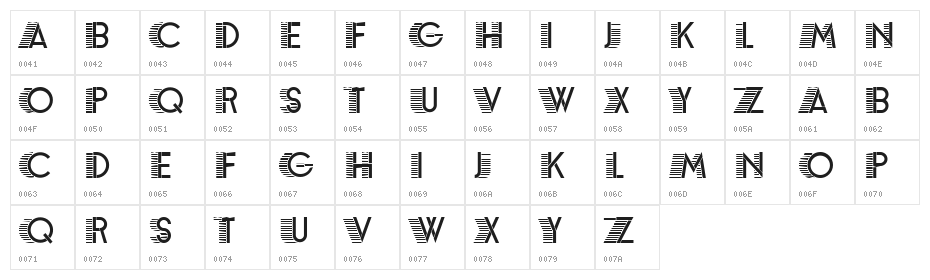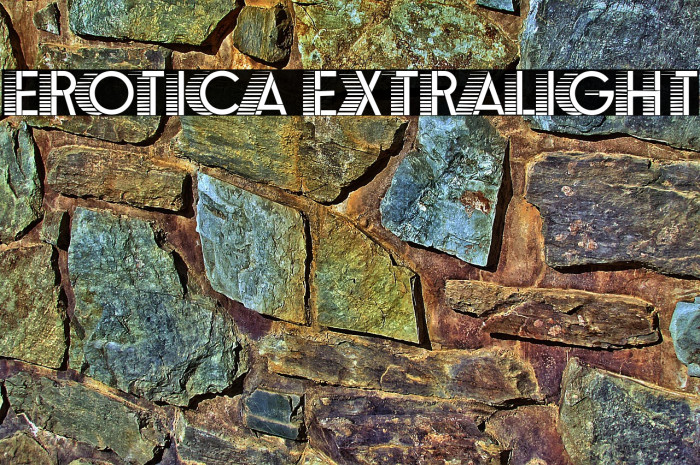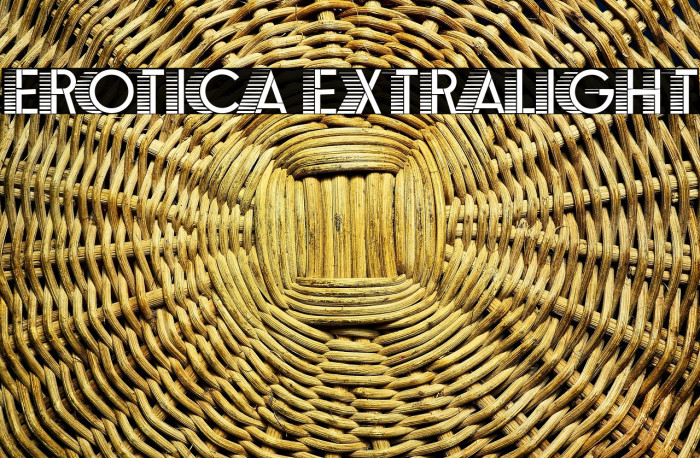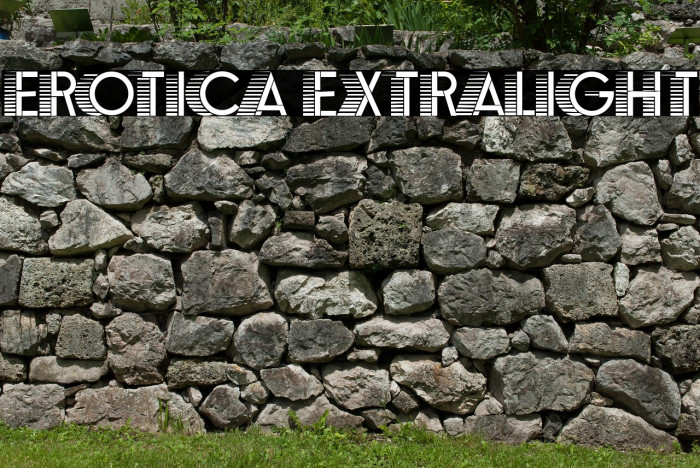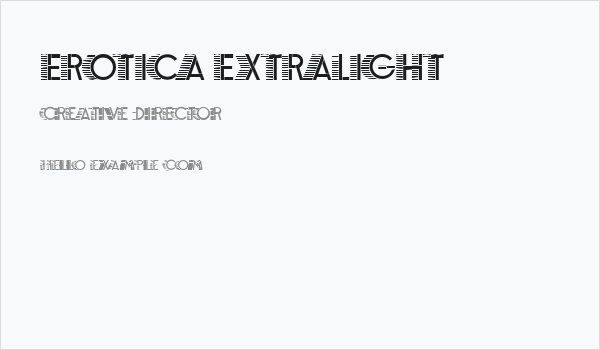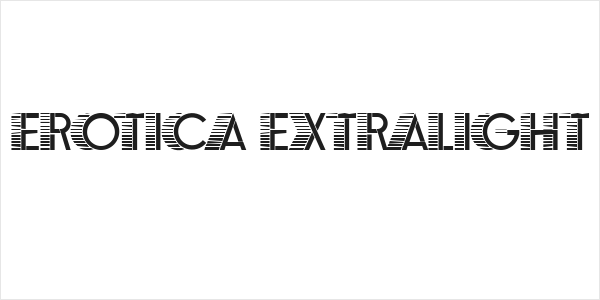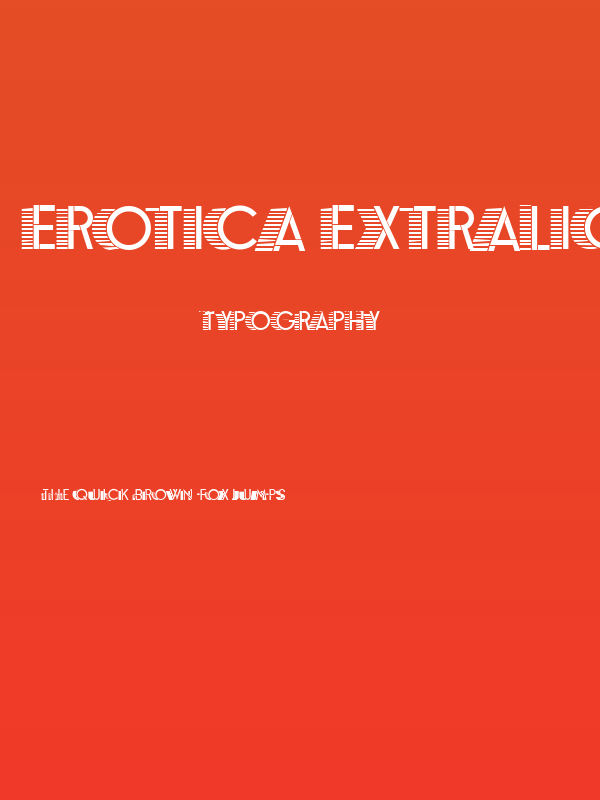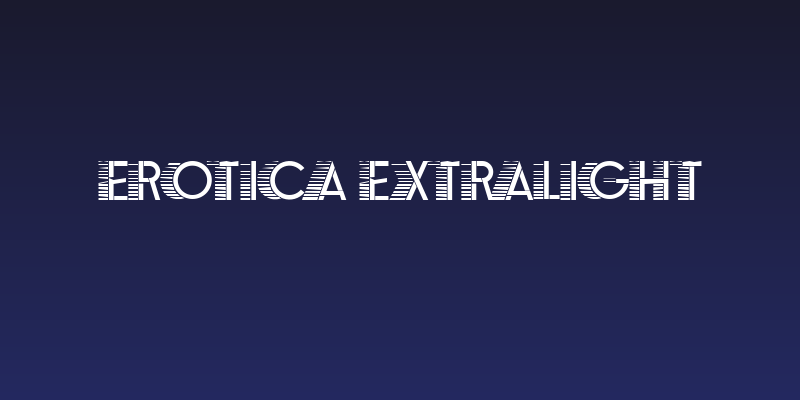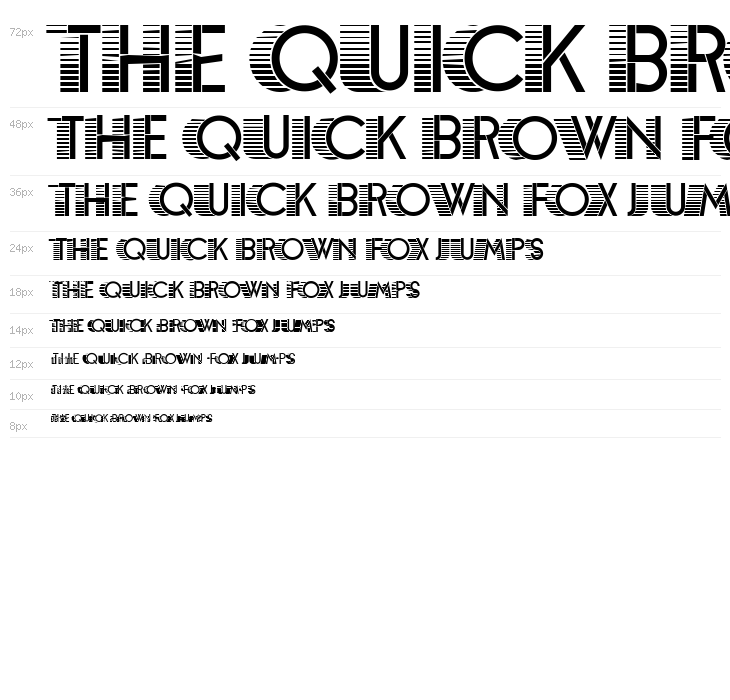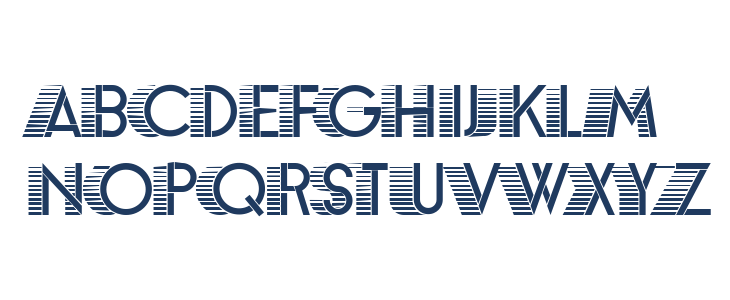
Erotica ExtraLight Font
Erotica ExtraLight Description
This font features a distinctive striped pattern within each character, creating a dynamic and eye-catching effect. The uppercase letters are bold and geometric, with clean lines and sharp angles. The horizontal stripes give a sense of movement and modernity, making it suitable for contemporary designs. The font maintains a consistent width across all characters, ensuring uniformity and balance. Its unique style makes it stand out, while still being legible and functional. The design is both artistic and structured, offering a fresh take on traditional letterforms.
| Proposed Projects | Ideal for branding, advertising, posters, and any project requiring a modern and striking visual impact. |